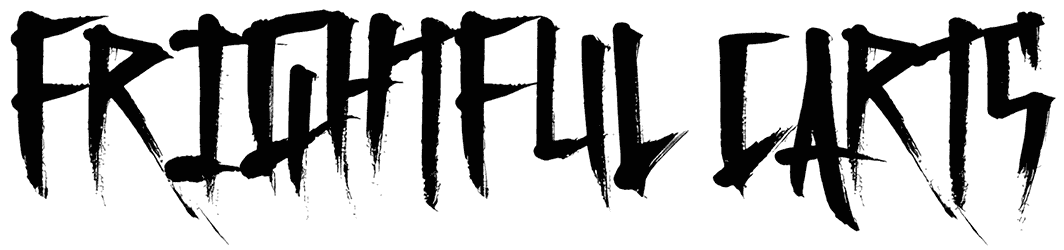
Frightful Carts Font
Sometimes, there is no room for making any mistakes in the middle of a critical graphic project, and in this situation, a magical ninja font such as Frightful Carts can be your savior.
Although this all-caps masterpiece doesn’t have good readability, it can captivate the attention of the audience to your street posters, stickers, social media posts, or video game brochures in the shortest possible time. Also, it can lead to a vibe of dread, grunge, dynamic, or spookiness.